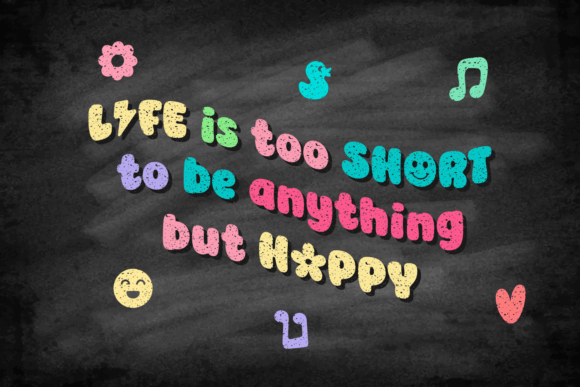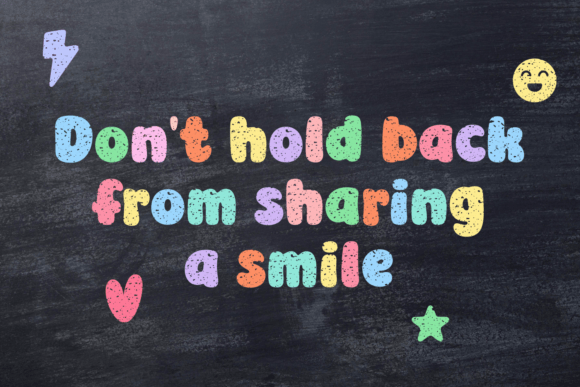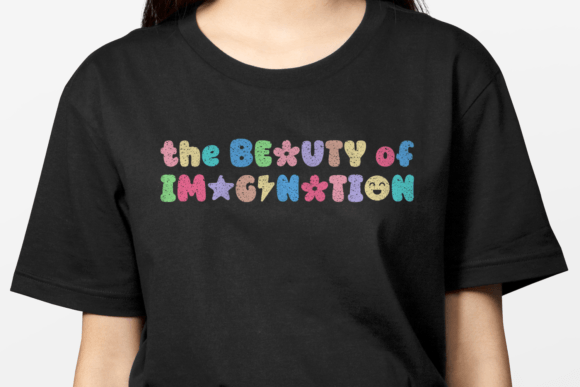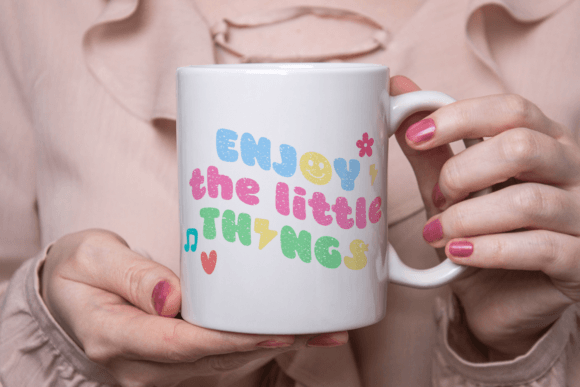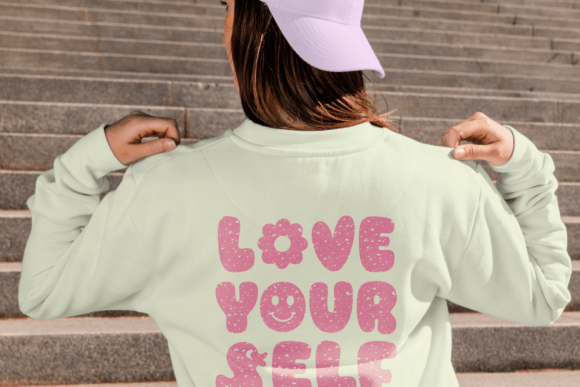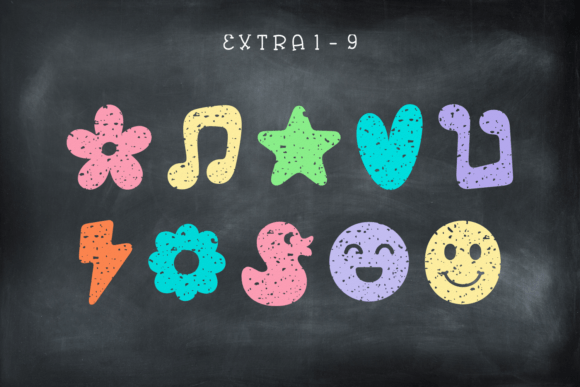
Introduction to Smiley Chalk Font
Have you ever found yourself stuck on a creative project, desperately searching for that one perfect font to make it pop? I know I have. And then, like a ray of sunshine on a cloudy day, I stumbled upon the Smiley Chalk Font. Its playful and eye-catching design had me hooked from the very first glance.
As designers, we know how much a high-quality font can elevate our work and make it truly stand out. That’s why I’m excited to share with you the Smiley Chalk Font, a design resource that’s sure to turn heads and spark conversation. With its unique style and quirky personality, this font is perfect for creating attention-grabbing headlines, posters, and other design projects that demand a big personality.
Not only is the Smiley Chalk Font a valuable addition to any designer’s toolkit, but it’s also incredibly versatile. Whether you’re working on a project with a transparent background or need a font that can handle bold, colorful graphics, this font is up to the task. And the best part? It’s available for free download, making it an absolute must-have for any creative project.
Key Features of Smiley Chalk Font
- High-quality, hand-drawn design suitable for creative projects, such as children’s books, educational materials, and advertisements.
- Features a transparent background, making it easy to overlay on different images and designs.
- Smiley Chalk Font is available in 7 different smiley face styles, each with its own unique characteristics and expressions.
- Designed with a playful, whimsical feel, perfect for adding a touch of fun and personality to your design projects.
Honest Review: Smiley Chalk Font
As a designer, I’m always on the lookout for high-quality design resources to elevate my creative projects. The Smiley Chalk Font is one such resource that caught my eye, and I’m excited to share my thoughts on it.
What works well: ✨ The Smiley Chalk Font is incredibly versatile and can be used for a wide range of creative projects, from children’s book illustrations to playful social media graphics. The font’s cheerful and approachable feel makes it perfect for designs that require a lighthearted touch. Additionally, the font is available for free download, making it a fantastic addition to any designer’s toolkit.
What doesn’t work well: ⚠️ One potential limitation of the Smiley Chalk Font is its limited character set. While it’s great for simple text-based designs, it may not be the best choice for longer blocks of text. Additionally, the font’s playful feel may not be suitable for all design projects, particularly those that require a more serious or formal tone.
Overall, I’m really impressed with the Smiley Chalk Font. Its high-quality design, transparent background, and free download make it a fantastic resource for designers. While it may have some limitations, it’s a great addition to any design toolkit and can add a fun and playful touch to creative projects.
The Smiley Chalk Font is a high-quality, free download design resource ideal for creative projects. Its transparent background makes it versatile for various applications.
Tips for Getting the Most Out of Smiley Chalk Font
Experiment with different font sizes and colors to create visually appealing designs.
Combine the Smiley Chalk Font with other design elements to create unique and eye-catching graphics.
The Smiley Chalk Font is ideal for:
Children’s party invitations and decorations.
Education and learning materials.
Fun and playful marketing campaigns.